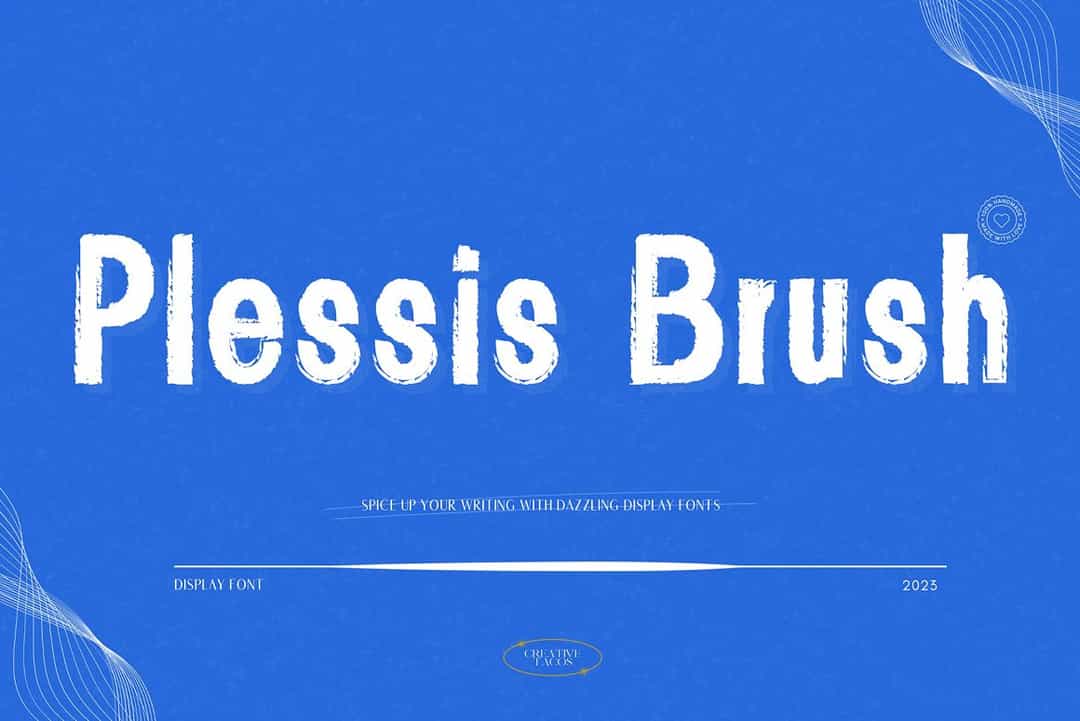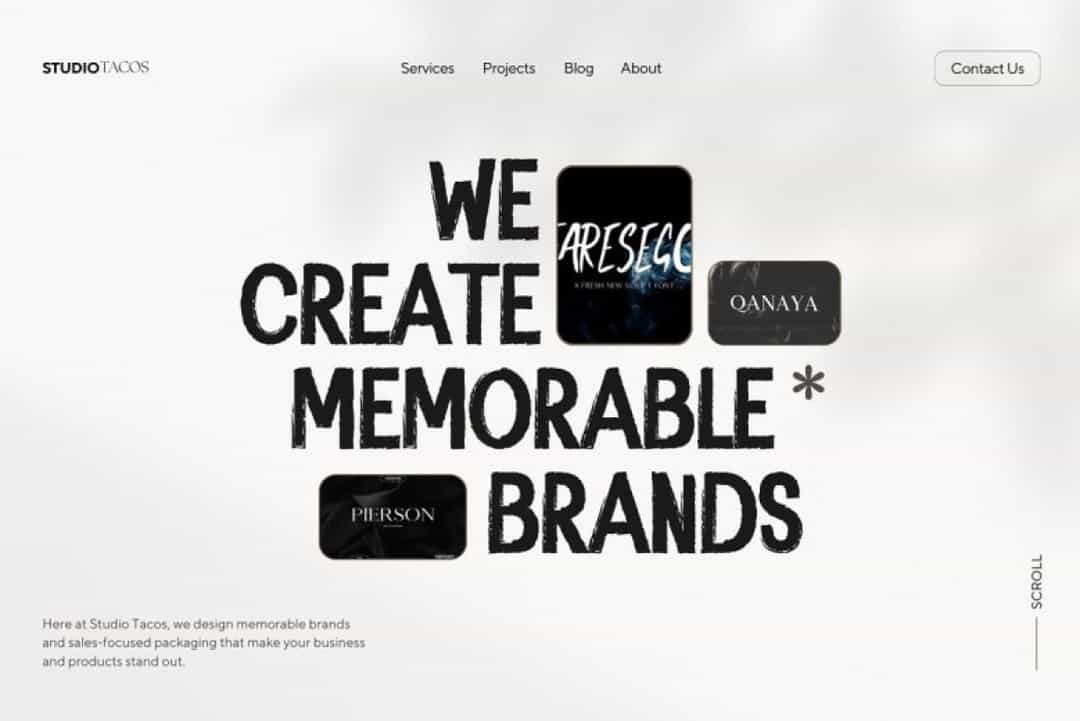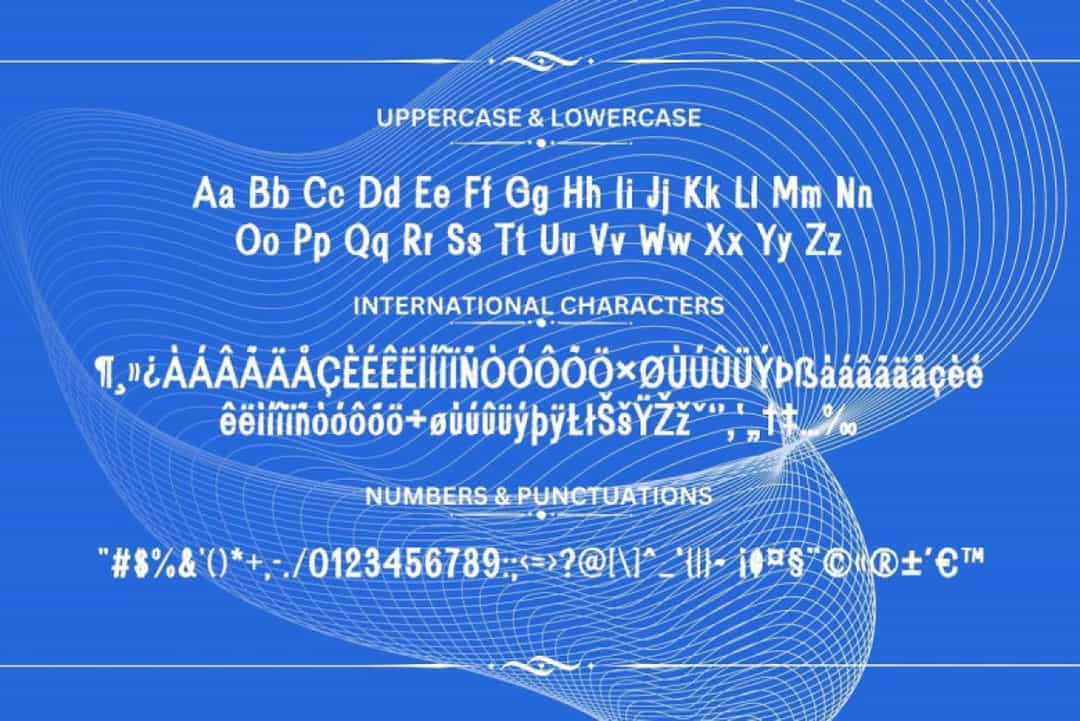
Plessis Brush is an artistic font with great brush strokes that adds visual interest to any design project. Not to mention it offers everything needed from uppercase numbers, lowercase numbers, punctuation marks and symbols – even supporting multiple languages!